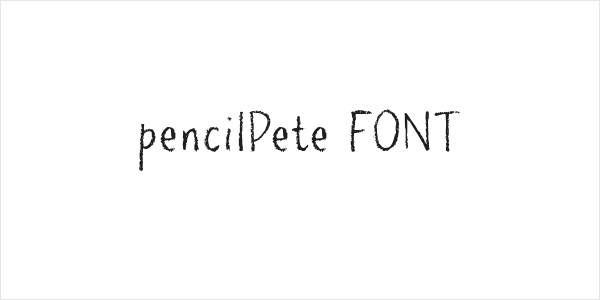
pencilPete FONT Font
pencilPete FONT Description
This font features a playful and textured style that mimics the appearance of hand-drawn pencil strokes. The letters have an organic, slightly irregular form, giving them a casual and approachable feel. The uppercase and lowercase letters maintain a consistent style, with rounded edges and a slightly rough texture that adds character. The font's unique texture makes it stand out, providing a sense of creativity and informality. It is well-suited for projects that require a personal touch or a handcrafted aesthetic. The overall design is both whimsical and versatile, making it suitable for a variety of creative applications.
| Overall Style | Casual, Creative |
| Proposed Projects | Ideal for children's book covers, creative posters, DIY crafts, and informal branding. |